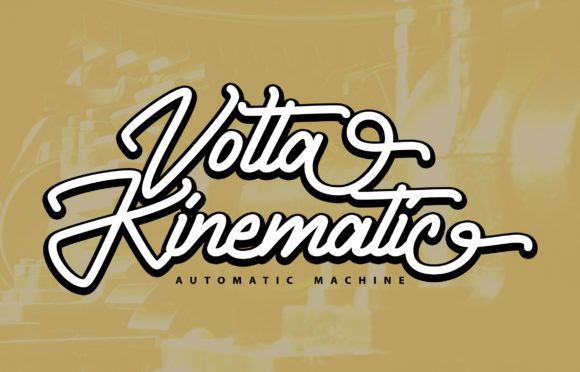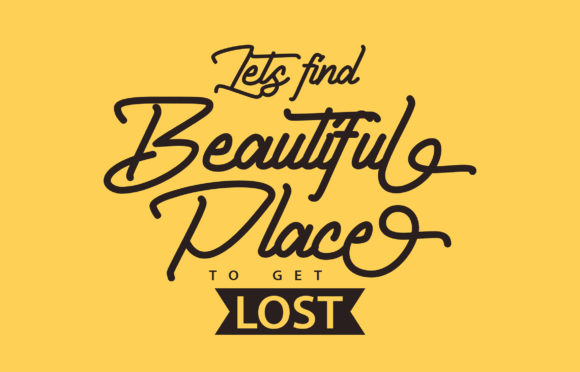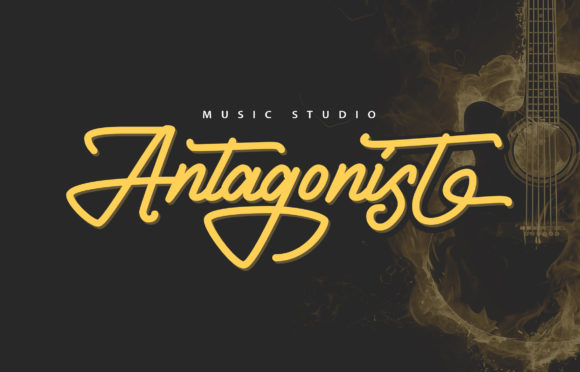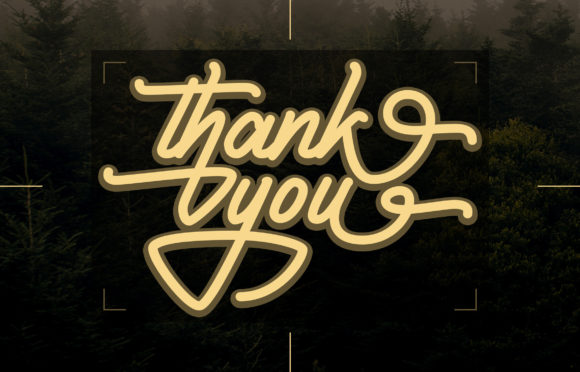
Introduction to Shout Ease Font
Shout Ease is inspired by classic typography and brings its own unique style to any design project.
This versatility will appeal to a wide range of crafty ideas, from letterheads and titles, to stationery .
Key Features of Shout Ease Font
Why Choose Shout Ease Font?
Shout Ease Font offers exceptional quality and versatility, making it a valuable addition to your design toolkit. Whether you’re creating for personal projects or commercial use, Shout Ease Font delivers professional results.